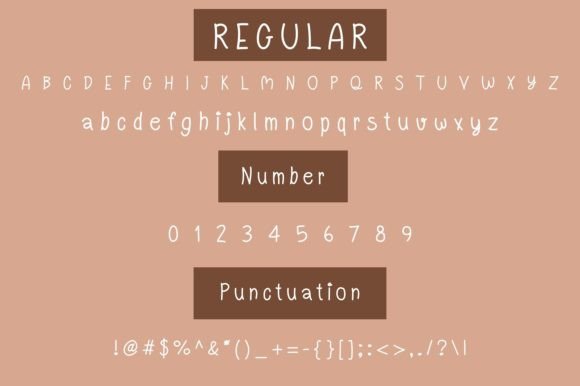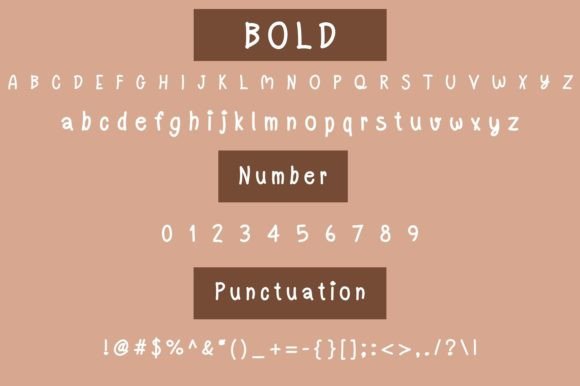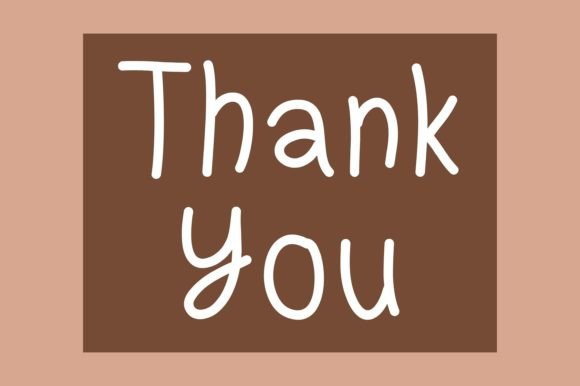
Melody Font
Introducing Melody Font
The Melody Font is a cute and modern handwritten typeface appreciated for its versatility and the playful, authentic vibe it brings to designs. This font’s light and charming characters make it a suitable choice for a diverse range of design projects, embodying a sense of playfulness and authenticity. Its appeal lies in its ability to convey a lighthearted and modern aesthetic with its handwritten script style.
Why Choose This Typeface?
• Playful and Authentic: Melody adds a touch of youthful energy to your designs, making it perfect for blog posts, logos, branding materials, advertisements, invitations, greeting cards, planners, photo albums, decorations, and more.
• Versatile Usage: This font provides a visually appealing choice for various creative endeavors, allowing you to infuse your designs with charm and style.
Applications of Melody
• Blog Posts: Use this font to create engaging blog content that captures attention.
• Branding: Enhance your brand identity with a script style that conveys modern elegance.
• Invitations: Perfect for adding a stylish script aesthetic to invitations and other creative projects.
The Impact of Using Melody
This font elevates your designs by making them visually captivating and memorable. It becomes a reliable tool for designers seeking to create projects that stand out with playfulness. Its balanced form ensures your designs are both lively and captivating.
The Value It Brings
This typeface excels in combining contemporary design aesthetics with playful elegance. By choosing Melody, you ensure your designs are not only visually appealing but also engaging and unique.
This font is also ideal for various creative projects beyond traditional uses. It can enhance digital designs with its cheerful flair, making it suitable for websites, brochures, or mobile interfaces. The Melody Font adapts well to different screen sizes while maintaining its charm. As design trends evolve, this font remains relevant due to its timeless appeal, balancing style with functionality effectively.